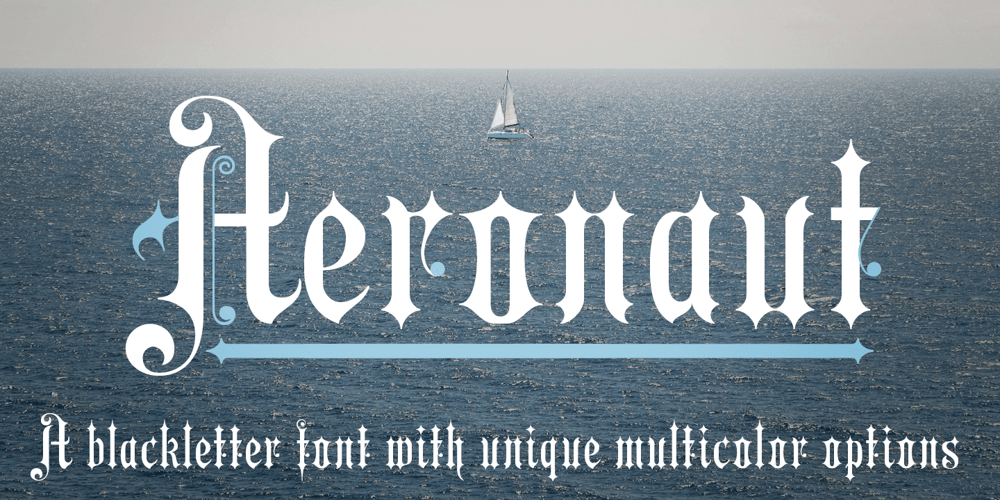
Aeronaut
Aeronaut font
Aeronaut Font Family was designed by Georg Herold-Wildfellner and published by FaceType. Aeronaut contains 5 styles and family package options. A Neogothic typeface that radiates trendy ease and allows bicolor compositions. The decorative elements of Aeronaut, the swashes we call parachutes and the squiggly arrows of the upper-case characters soften the font’s Gothic appearance. It’s the reason why we labeled it a “Neogothic typeface that radiates trendy ease.” Make it as modern as you like it to be. · Aeronaut-Base combined with Aeronaut-Parachute allows bicolor compositions. Simply place them on top of each other to create playful, two-colored headlines. Aeronaut-Balloon is similar to Aeronaut-Parachute but offers even longer swashes. AeronautPlain is similar to Aeronaut-Base but works as a complete font on its own (as it contains all punctuation). We abandoned the swashes of the upper-case characters to keep the font pure and straight. · The glyphs of Aeronaut are derived from Textualis also known as Textura or Gothic Bookhand. Textualis represented the most calligraphic form of blackletter types and is today regarded as quintessentially Gothic. Aeronaut has been inspired by Kirchengotische Schrift, a font that can be found in a German font book from 1879 entitled Vorlegeblätter für Firmenschreiber. As its name suggests, it was designed for religious publications. · View other fonts from Georg Herold-Wildfellner: Sofa Serif | Sofa Sans | Mila Script Pro | Pinto | Supernett | Mr Moustache | Aeronaut | Ivory | Weingut · Language Report for Aeronaut / 175 languages supported: Abenaki, Afaan Oromo, Afar, Afrikaans, Albanian, Alsatian, Amis, Anuta, Aragonese, Aranese, Aromanian, Arrernte, Arvanitic, Asturian, Aymara, Basque, Bikol, Bislama, Bosnian, Breton, Cape Verdean, Catalan, Cebuano, Chamorro, Chavacano, Chickasaw, Cimbrian, Cofan, Corsican, Croatian, Czech, Danish, Dawan, Delaware, Dholuo, Drehu, Dutch, English, Estonian, Faroese, Fijian, Filipino, Finnish, Folkspraak, French, Frisian, Friulian, Galician, Genoese, German, Gooniyandi, Greenlandic, Guadeloupean, Gwichin, Haitian Creole, Han, Hiligaynon, Hopi, Hungarian, Icelandic, Ido, Ilocano, Indonesian, Interglossa, Interlingua, Irish, Istroromanian, Italian, Jamaican, Javanese, Jerriais, Kala Lagaw Ya, Kapampangan, Kaqchikel, Karelian, Kashubian, Kikongo, Kinyarwanda, Kiribati, Kirundi, Klingon, Ladin, Latin, Latino Sine, Lojban, Lombard, Low Saxon, Luxembourgish, Makhuwa, Malay, Manx, Marquesan, Meglenoromanian, Meriam Mir, Mohawk, Moldovan, Montagnais, Montenegrin, Murrinhpatha, Nagamese Creole, Ndebele, Neapolitan, Ngiyambaa, Norwegian, Novial, Occidental, Occitan, Oshiwambo, Ossetian, Palauan, Papiamento, Piedmontese, Polish, Portuguese, Potawatomi, Qeqchi, Quechua, Rarotongan, Romanian, Romansh, Rotokas, Sami Lule, Sami Southern, Samoan, Sango, Saramaccan, Sardinian, Scottish Gaelic, Serbian, Seri, Seychellois, Shawnee, Shona, Sicilian, Silesian, Slovak, Slovenian, Slovio, Somali, Sorbian Lower, Sorbian Upper, Sotho Northern, Sotho Southern, Spanish, Sranan, Sundanese, Swahili, Swazi, Swedish, Tagalog, Tetum, Tok Pisin, Tokelauan, Tshiluba, Tsonga, Tswana, Tumbuka, Tzotzil, Uzbek, Venetian, Vepsian, Volapuk, Voro, Walloon, Waraywaray, Warlpiri, Wayuu, Wikmungkan, Wiradjuri, Xhosa, Yapese, Yindjibarndi, Zapotec, Zulu, Zuni